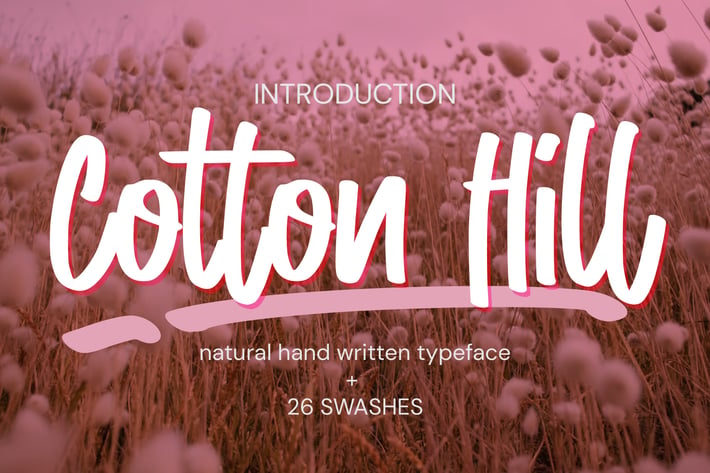
Cotton Hill - Natural Hand Written Typeface
Cotton Hill - Natural Hand Written Typeface Font that will make your designs look modern, unique and fun. It’s perfect for labels, quotes, posters, DIY projects, branding, packaging, greeting cards, websites, photography overlays, signs, window art, scrapbooking, tags and so much more!
+ Ligatures